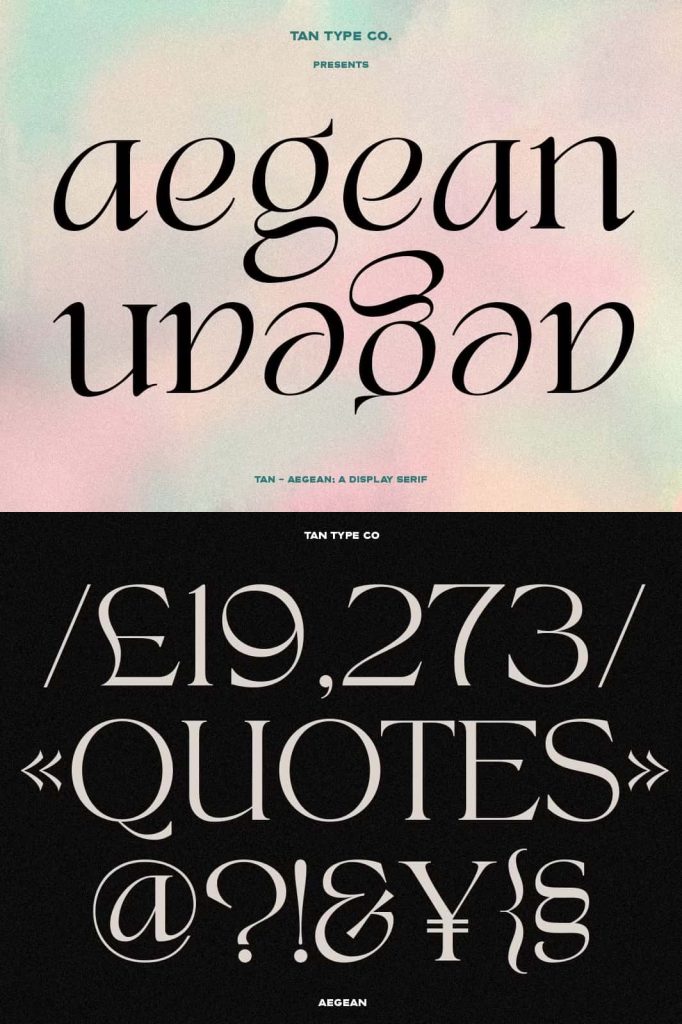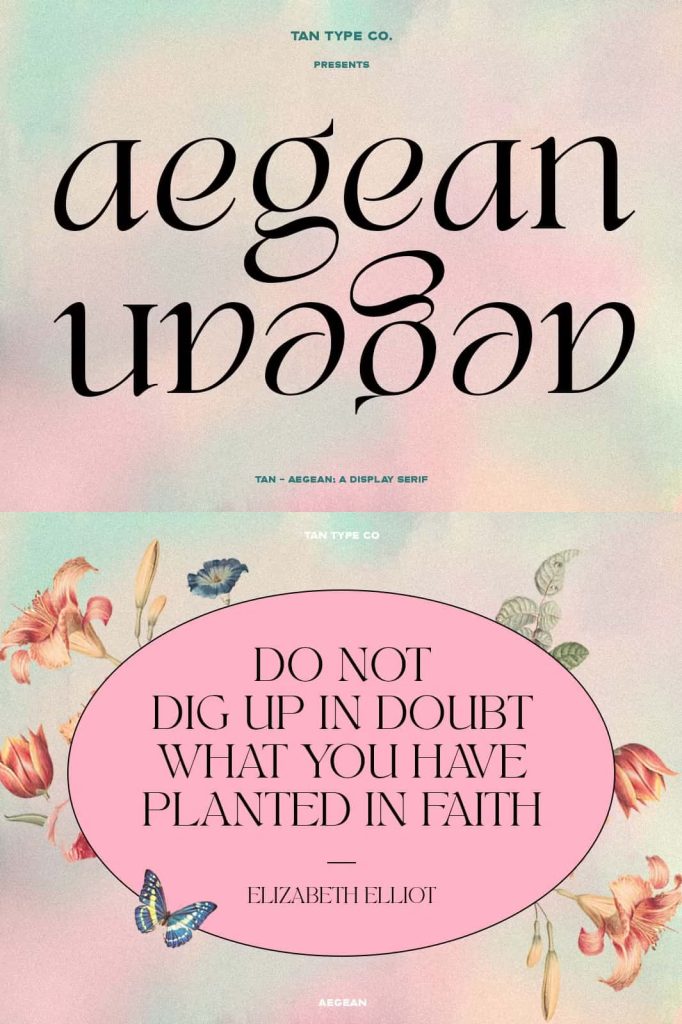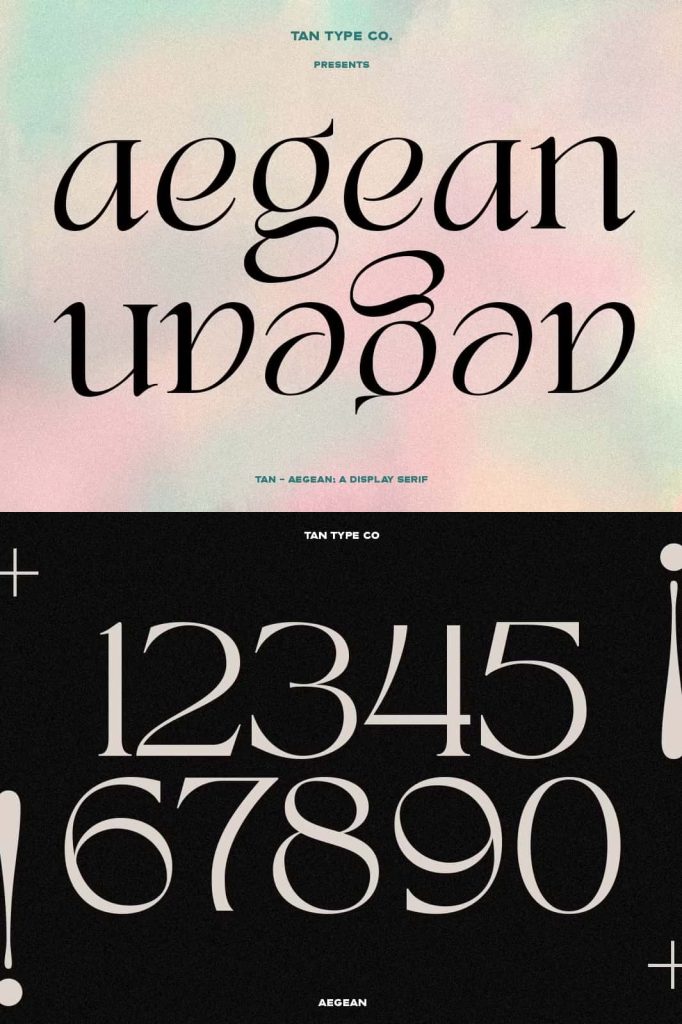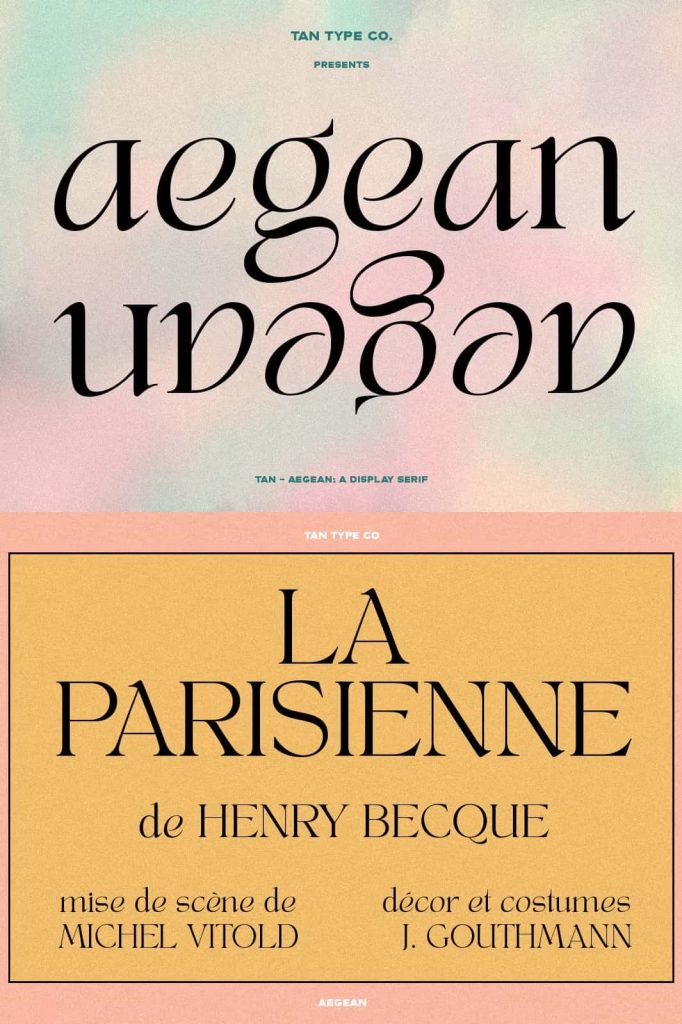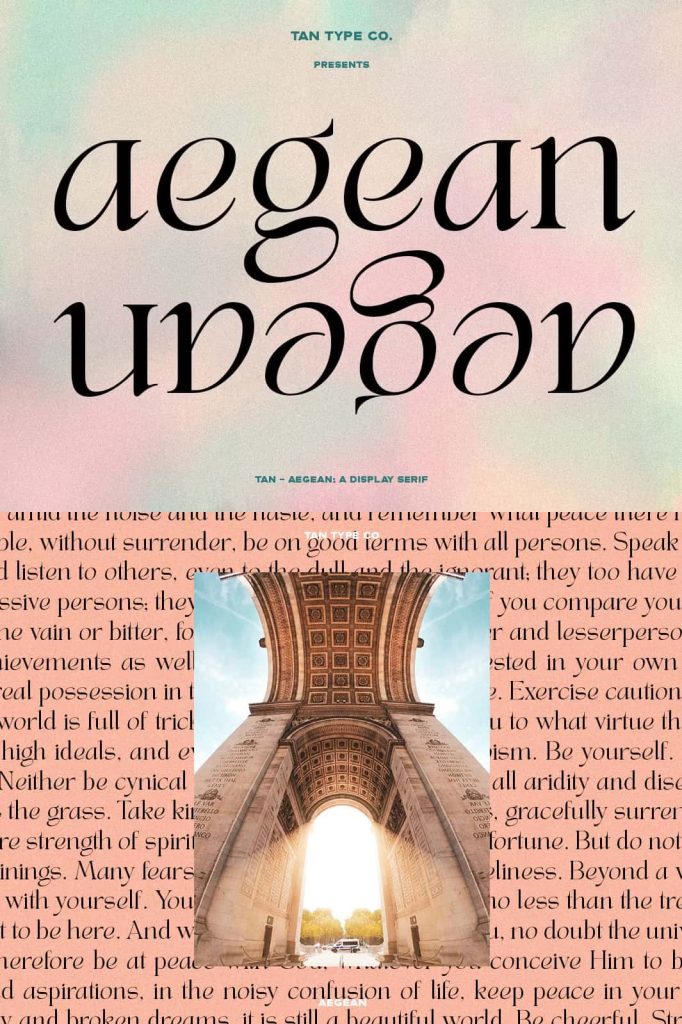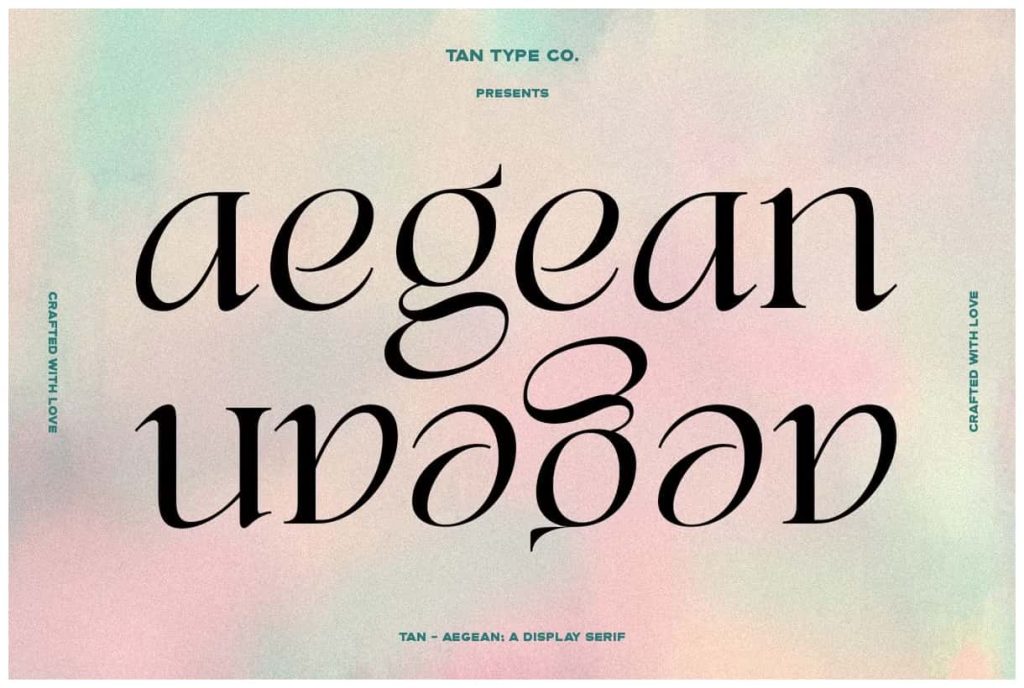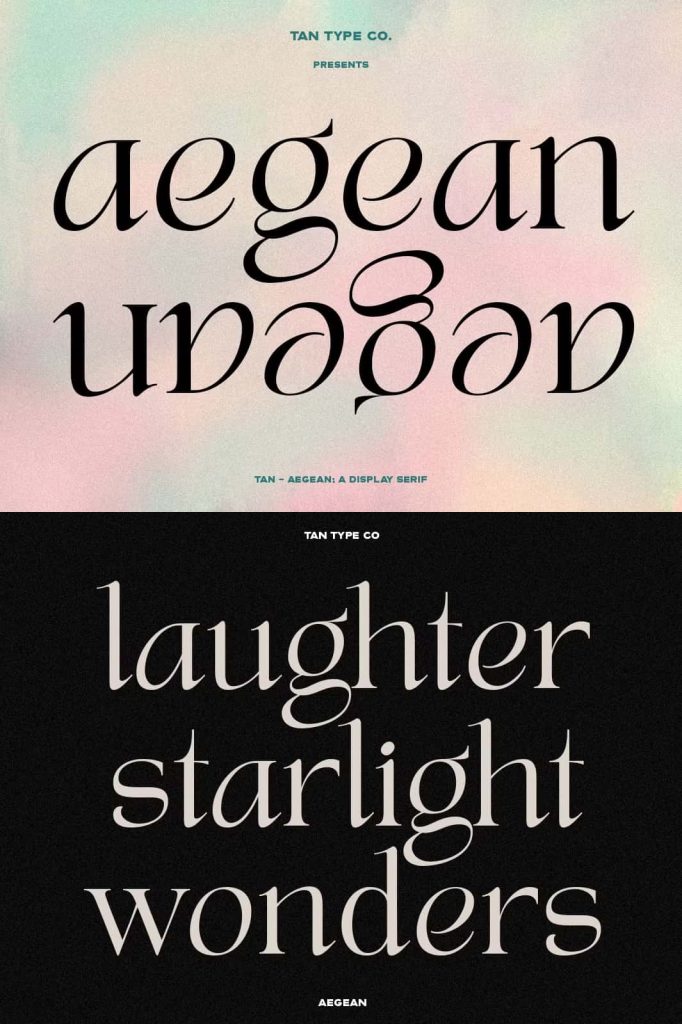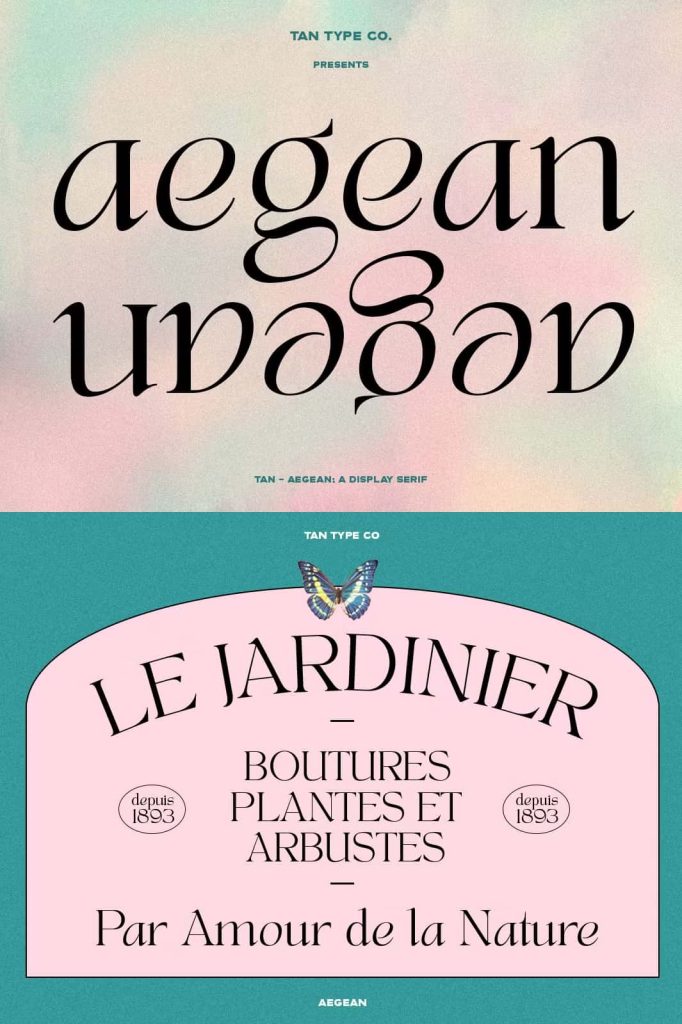
TAN AEGEAN Font: An Elegant Display Serif with Timeless Charm
TAN AEGEAN offers a refined and sophisticated approach to typography through its elegant display serif design. This typeface combines classic structure with subtle playful details, allowing designers to create visually engaging compositions without losing a sense of professionalism. Its balanced proportions and graceful letterforms make it a strong choice for projects that demand both beauty and versatility.
Designers often seek fonts that can adapt across different styles while maintaining a distinct personality. TAN AEGEAN answers this need by blending traditional serif elements with modern creativity. As a result, it performs effortlessly in both contemporary and classic design environments.
What Makes TAN AEGEAN Stand Out?
TAN AEGEAN stands out because it strikes a careful balance between elegance and expression. The serif details add a sense of tradition and authority, while the playful touches introduce character and uniqueness. This combination allows the font to feel both familiar and fresh.
The display nature of TAN AEGEAN ensures that it captures attention immediately. Designers can use it to highlight key messages, create memorable headlines, and establish a strong visual identity.
Key Characteristics
- Elegant serif structure with refined letterforms
- Display-focused design for high visual impact
- Subtle playful elements that add personality
- Balanced proportions for readability and style
- Versatile application across various design projects
The Role of Display Serif Fonts in Design
Display serif fonts like TAN AEGEAN play a crucial role in shaping visual communication. They help designers create hierarchy, guide attention, and establish tone. Unlike body text fonts, display serifs focus on making a statement rather than supporting long passages of text.
TAN AEGEAN excels in this role by delivering strong visual presence without overwhelming the design. Its elegant curves and structured forms make it suitable for both minimal and detailed layouts.
Why Choose a Display Serif Font?
- Enhances visual hierarchy in design compositions
- Creates a sophisticated and polished appearance
- Adds character and uniqueness to branding
- Draws attention to headlines and key elements
Best Use Cases for TAN AEGEAN
TAN AEGEAN adapts easily to a wide range of creative applications. Its versatility allows designers to use it across industries while maintaining a consistent and elegant aesthetic. Whether working on digital or print projects, this font delivers reliable performance and visual appeal.
Ideal Applications
- Branding and logo design that require a refined identity
- Editorial layouts such as magazines and fashion publications
- Wedding invitations and luxury stationery
- Social media graphics with a stylish tone
- Packaging designs that emphasize elegance and quality
How to Use TAN AEGEAN Effectively
To maximize the potential of TAN AEGEAN, designers should focus on composition and contrast. Pair this elegant serif font with clean sans-serif typefaces to create a balanced and modern layout. This combination allows the serif details to stand out while maintaining readability.
Use TAN AEGEAN primarily for headlines, titles, or short phrases. Its display nature works best when given space to breathe. Avoid overcrowding the layout, as this can reduce the impact of its refined letterforms.
Design Tips
- Use generous spacing to highlight the font’s elegance
- Combine with minimalist fonts for contrast
- Apply neutral or soft color palettes for a refined look
- Limit usage to key elements for maximum impact
TAN AEGEAN delivers a sophisticated blend of classic serif design and playful modern details. Its elegant structure and versatile nature make it a valuable addition to any designer’s toolkit. Whether used in branding, editorial design, or creative projects, this font provides a polished and memorable visual experience.
By incorporating TAN AEGEAN into your work, you can elevate your typography and create designs that feel both timeless and expressive. This typeface does more than present text; it enhances the overall aesthetic and communicates a strong visual identity.